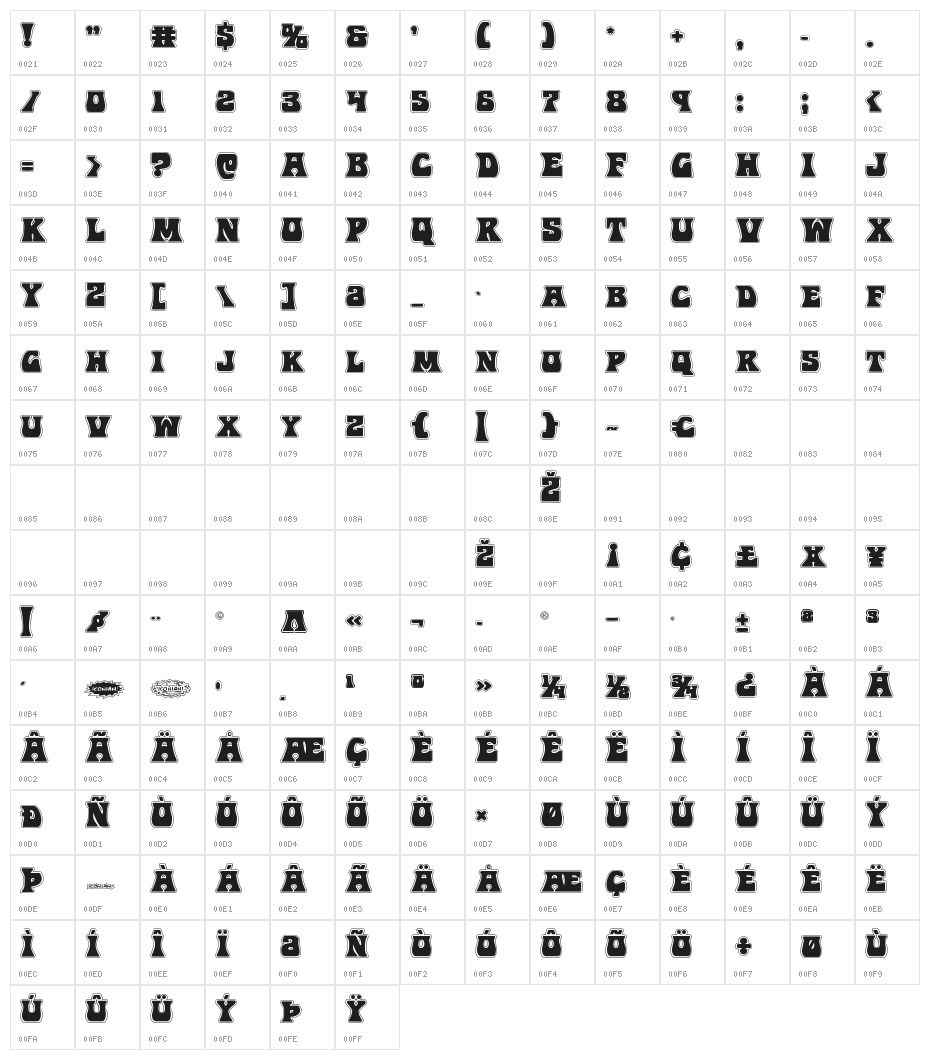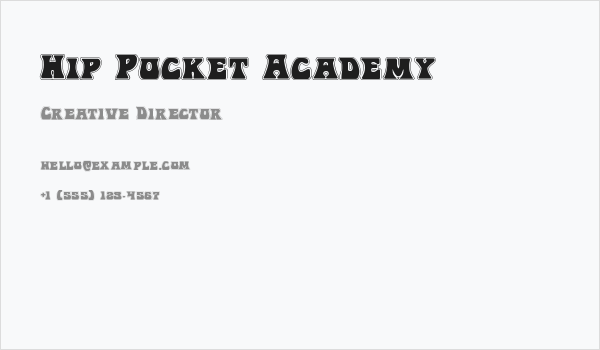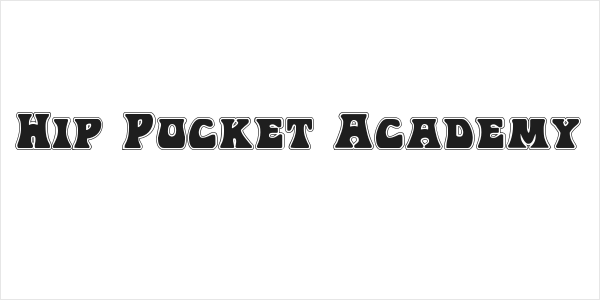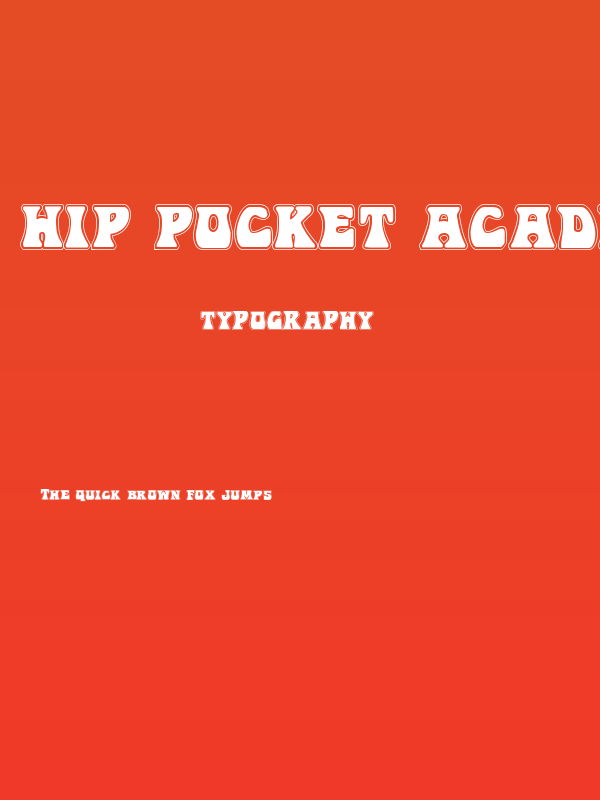
Hip Pocket Academy Font
Hip Pocket Academy Description
This font features bold, blocky characters with a distinct outline that gives it a three-dimensional appearance. The letters are uniformly wide, with a slightly condensed form that enhances their impact. The style is playful yet robust, making it suitable for attention-grabbing designs. The characters have a consistent thickness, contributing to a low contrast between strokes. This font's decorative nature is evident in its unique, chunky serifs and the way each letter is enclosed in a bold outline, adding to its visual weight and presence.
| Proposed Projects | Ideal for posters, headlines, logos, and any design requiring a strong, eye-catching typeface. |